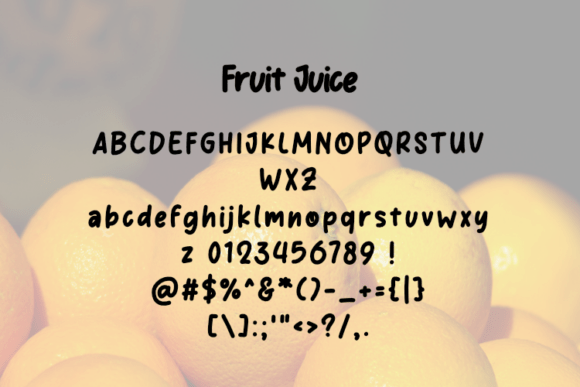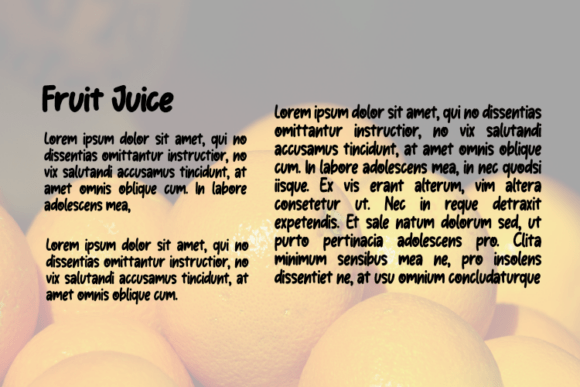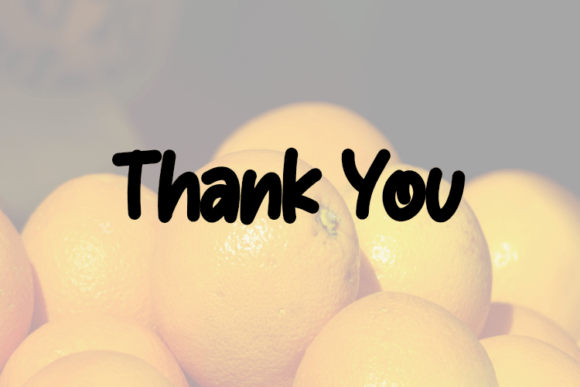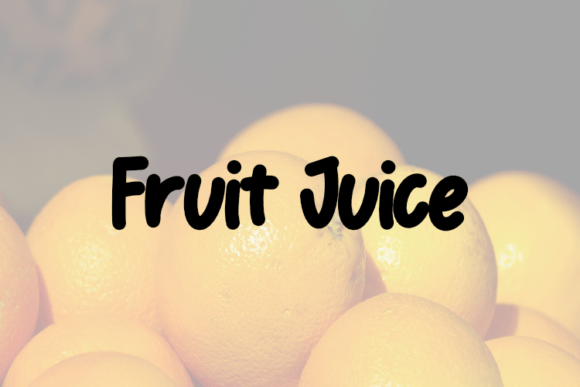
Introducing Fruit Juice Font: The Epitome of Modern Typography
In the realm of typography, a font can make or break the visual appeal of a design. For those seeking a typeface that exudes sophistication and refinement, Fruit Juice is an exceptional choice. This contemporary font is meticulously crafted to command attention while ensuring legibility across various media platforms. In this article, we’ll delve into the features and benefits of Fruit Juice, exploring its adaptability, technical versatility, and the creative possibilities it offers to designers and crafters.
A Sleek and Adaptable Design
Fruit Juice boasts a sleek design that effortlessly adapts to diverse media environments. Whether you’re working on a digital project, print material, or a combination of both, this typeface ensures that your text is always legible and visually appealing. Its refined aesthetic infuses each word with undeniable appeal, making it an excellent choice for a wide range of applications, from branding and advertising to editorial design and packaging.
Exceptional Legibility
Legibility is a critical aspect of typography, and Fruit Juice excels in this regard. Its carefully crafted letterforms ensure that text is easily readable, even in smaller sizes or at a distance. This makes it an ideal choice for designers working on projects that require clear communication, such as signage, magazines, or websites. With Fruit Juice, you can trust that your message will be conveyed effectively, without compromising on style.
Technical Versatility
Creative Possibilities
With Fruit Juice, the creative possibilities are endless. Here are some ideas to get you started:
- Branding and Identity: Use Fruit Juice to create a sophisticated brand identity, including logos, business cards, and letterheads.
- Advertising and Marketing: Fruit Juice is perfect for creating eye-catching advertisements, social media graphics, and promotional materials.
- Editorial Design: Use Fruit Juice in magazines, newspapers, and books to add a touch of elegance and sophistication.
- Packaging Design: Fruit Juice is an excellent choice for product packaging, adding a premium feel to your designs.
In conclusion, Fruit Juice is a refined and sophisticated typeface that offers exceptional legibility, technical versatility, and creative possibilities. Its sleek and adaptable design makes it an excellent choice for designers and crafters working on a wide range of projects. With Fruit Juice, you can elevate your designs to new heights, creating visually stunning and effective typography that communicates your message with style and sophistication.